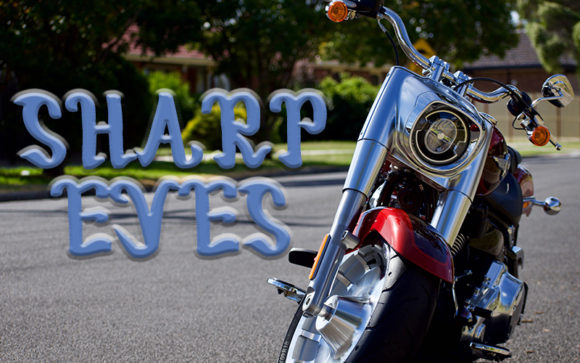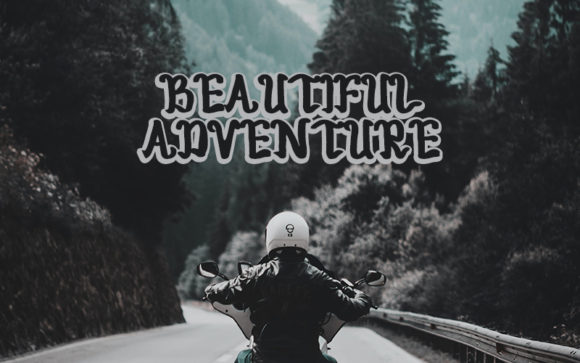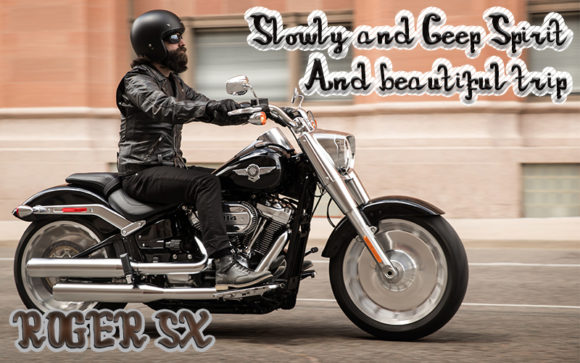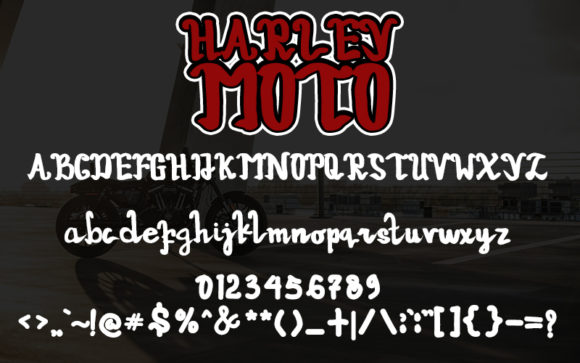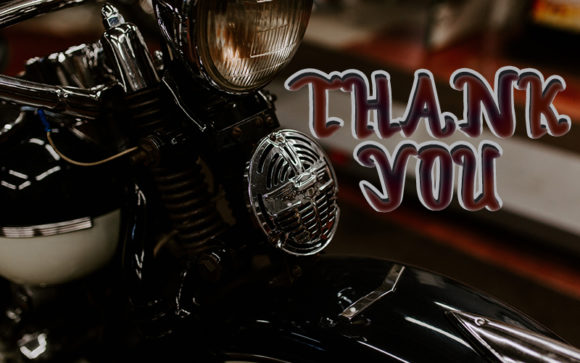
Harley Moto Font
About Harley Moto Font
Harley Moto embodies fun, quirkiness and authenticity. This enchanting handwritten font will turn any creative idea into a true standout.